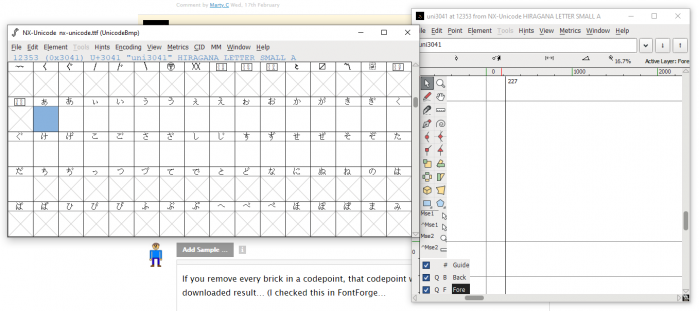
Description is kinda weird and buggy, it gets deleted whenever i go out and back in
Almost 1000 characters!!!
yeah the description is doing that for my fonts too. 10/10
Edit: removed hiragana. Syllabaries really ain't my thing, unless it's cherokee.
If you remove every brick in a codepoint, that codepoint will be a blank space in the downloaded font… (I checked this in FontForge)
Does it matter?